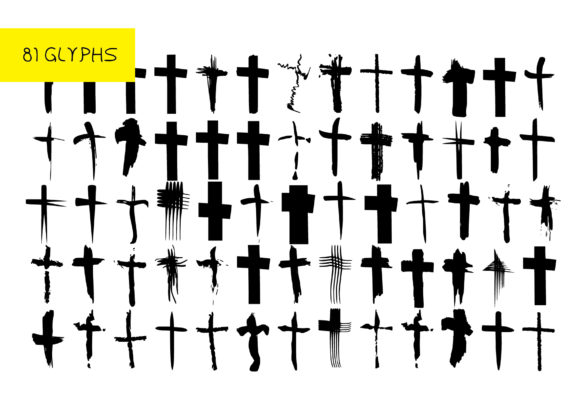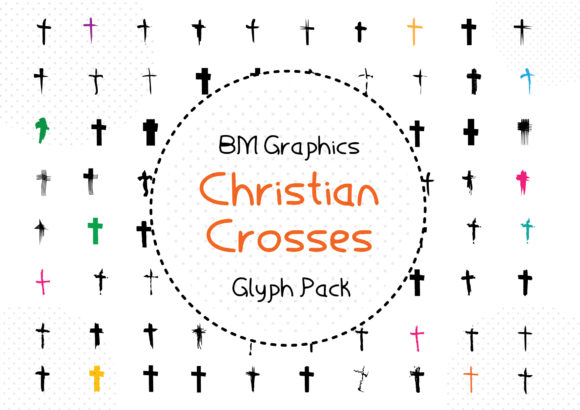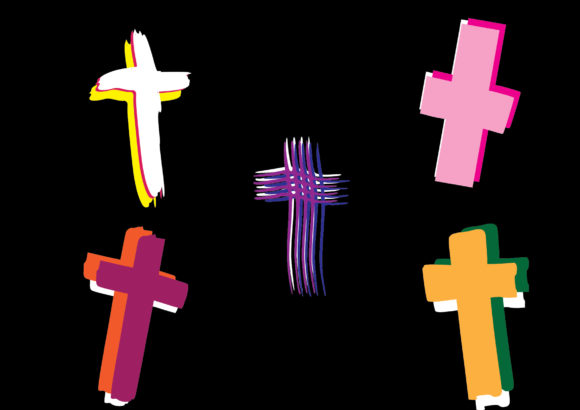
About BM Graphics – Christian Crosses Font
The Christian Crosses dingbats font sounds like a valuable resource for incorporating cross symbols into your design projects. Here are some creative ways you can utilize this font effectively:
1. Religious and Spiritual Designs: If you’re working on designs for churches, religious organizations, or spiritual events, the Christian Crosses dingbats font can be a powerful tool. Use the various cross symbols provided in the font to represent Christian faith and convey a sense of spirituality in your designs.
2. Easter and Lent Designs: Around the Easter season or during Lent, the Christian Crosses dingbats font can help you create visually appealing graphics, posters, or social media posts. Incorporate different cross symbols from the font to emphasize the significance of these religious observances.
3. Church Bulletins and Newsletters: Enhance the visual appeal of church bulletins, newsletters, or worship programs by using the Christian Crosses dingbats font. Incorporate cross symbols as decorative elements or section dividers to create a cohesive and engaging design.
4. Religious Educational Materials: If you’re creating educational materials for religious studies or Sunday school classes, the Christian Crosses dingbats font can be a useful resource. Use the various cross symbols to illustrate different types of crosses, such as the Latin cross, Celtic cross, or Byzantine cross.
5. Jewelry and Accessories Design: Designers working on jewelry or accessories with a Christian theme can incorporate the cross symbols from the Christian Crosses dingbats font into their designs. Use them as patterns, pendants, or charms to create unique and meaningful pieces.
6. Book Covers and Inspirational Quotes: The Christian Crosses dingbats font can be used to create visually striking book covers for religious or inspirational books. Additionally, incorporate cross symbols into quotes or passages to add emphasis and visual interest.
Remember to explore the various cross symbols available in the Christian Crosses dingbats font. With its diverse range of crosses, you can choose the ones that best suit your project and convey the desired tone and style.